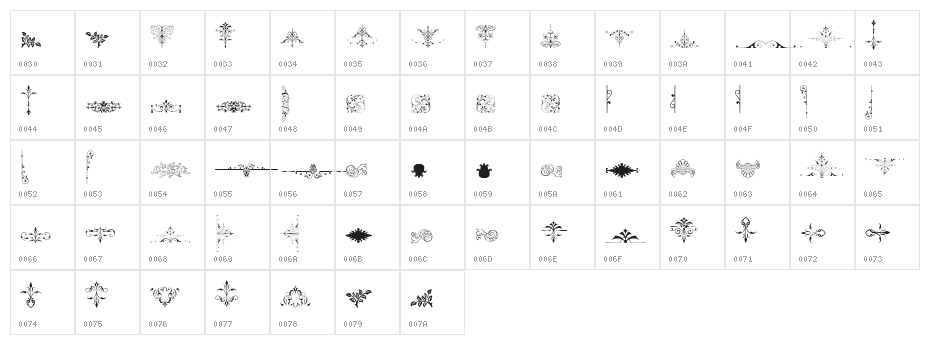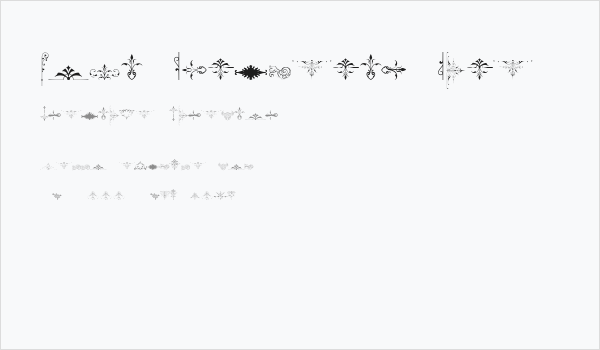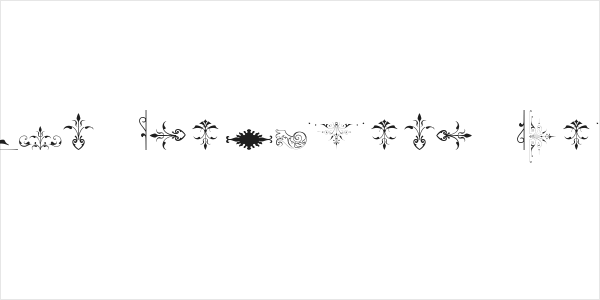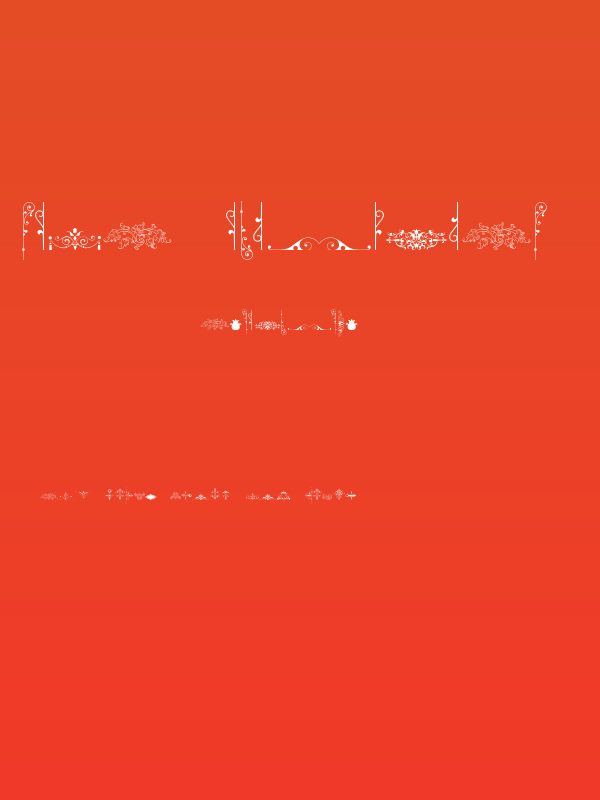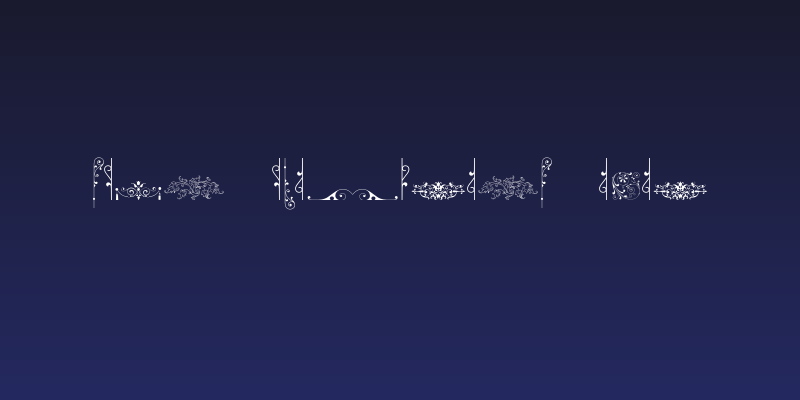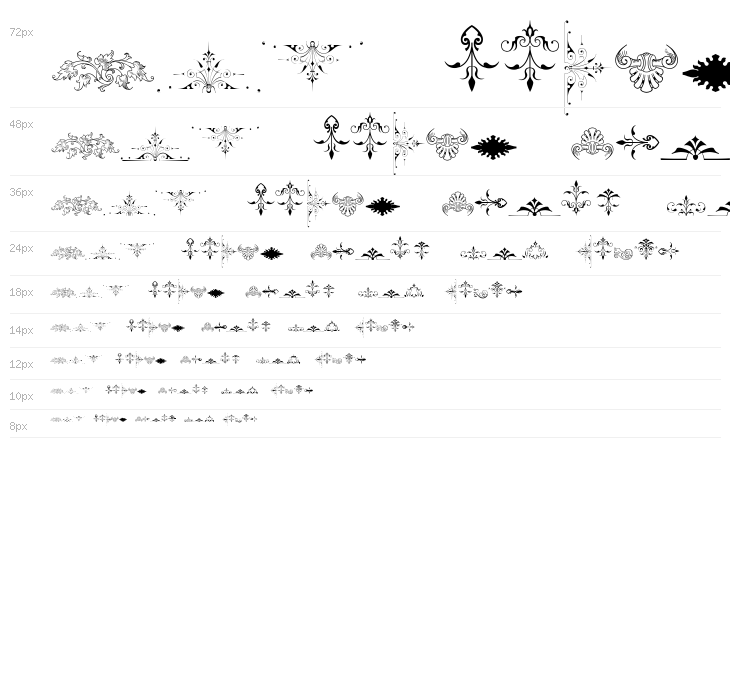
Soft Ornaments Nine Font
Soft Ornaments Nine Description
A collection of highly decorative, intricate ornamental glyphs featuring flourishes, swirls, and floral motifs. The designs are symmetrical and detailed, evoking a vintage or classical aesthetic suitable for embellishments.
| Overall Style | Vintage, Decorative, Ornamental |
| Use Case | Borders, Dividers, Decorative accents |
| Proposed Projects | Wedding invitations, certificates, book covers, decorative borders, vintage branding. |